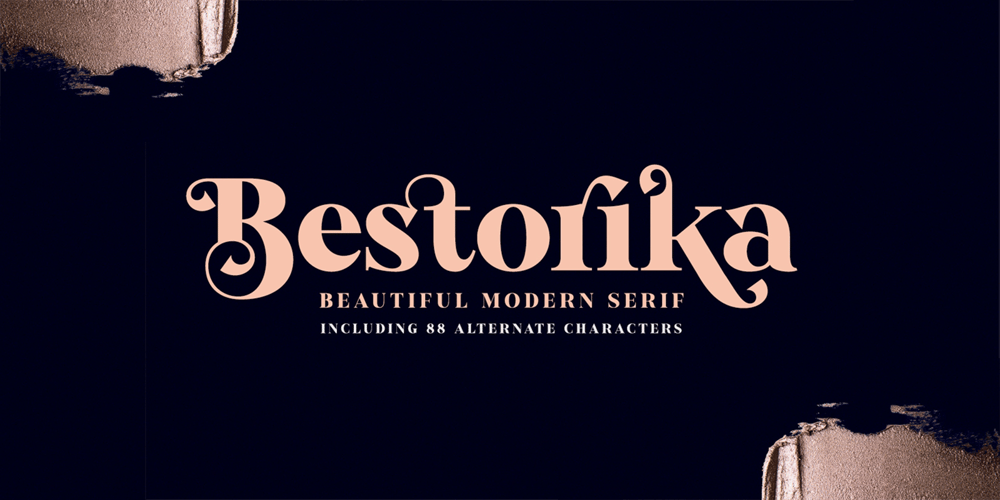
Bestorika Font Family was designed by Abdul Malik Wisnu, Rivo Adriansyah and published by Mokatype Studio. Bestorika contains 1 styles and family package options. Introducing Bestorika Beautiful Modern serif with contrast lines and balanced curves. This font may be conservative and classic, and also may be more playful and modern. A lot of stylish alternates will give you many useful variations for use. Try to play with compositions of curves / alternates letters basic.Like all of my fonts it is inspired by lettering from the good old past, but it still has a strong modern appearance. Its wide range of stylistic alternates allows versatile design options and works perfectly for headlines, logos, posters, packaging, coffee shops, restaurants, magazine’s headers, signs or gift/post cards,cafe’s and weddings.Try to use it in your beauty or travel blogs, you will see how many options you will have with stylish Bestorika.What’s Included : Standard glyphs Ligatures Alternates Web Font International Accent Works on PC & Mac Simple installations Accessible in the Adobe Illustrator, Adobe Photoshop, Adobe InDesign, even work on Microsoft Word. PUA Encoded Characters – Fully accessible without additional design software. Fonts include multilingual supportImage used : All photographs/pictures/vector used in the preview are not included, they are intended for illustration purpose only.Thank You